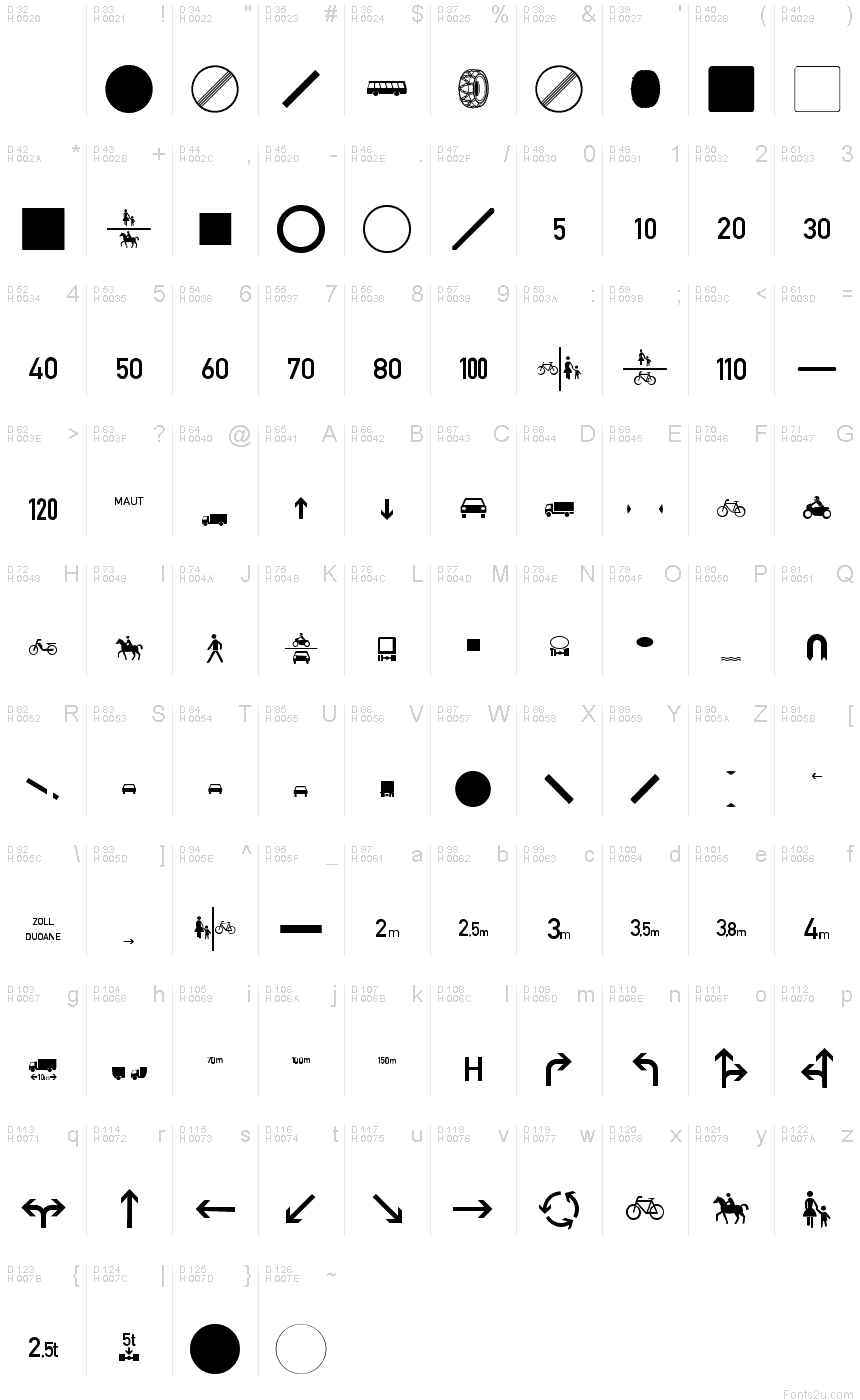
Zeichen Zweihundert
This little fontset gives you the opportunety to "write" every actual german traffic sign in color. detailed "how to" is added to the zip-file.